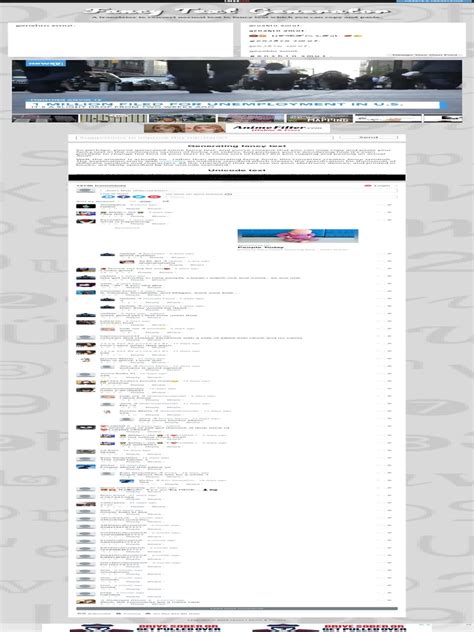
Lingojam Tailes Font Generator: Create Unique Text
Hey there, fellow digital explorers! Ever scroll through social media or gaming chats and see those super cool, stylish messages that just pop? You know, the ones that aren’t just plain old boring text? Well, today, we’re diving deep into the world of how you can create those eye-catching, unique texts, specifically focusing on the amazing Lingojam Tailes Font Generator . This isn’t just about making your words look pretty; it’s about adding personality, flair, and a whole lot of oomph to your online presence. Whether you’re a gamer looking to stand out in the chat, a social media influencer trying to make your captions more engaging, or just someone who loves to experiment with typography, this tool is going to be your new best friend. We’re talking about transforming your regular text into something truly special, something that grabs attention and makes people go, “Whoa, how’d they do that?” And guess what? It’s incredibly easy, super fun, and absolutely free. So, buckle up, guys, because we’re about to unleash your inner font wizard and make your digital communications shine brighter than ever before. We’ll explore what makes the Lingojam Tailes Font Generator so awesome, how to wield its power effectively, and why having a touch of fancy text in your life is an absolute game-changer. Get ready to ditch the drab and embrace the fab with unique, customizable text styles that truly represent your vibe. We’ll cover everything from the basics of using the generator to advanced tips for integrating these cool fonts into all aspects of your digital life, ensuring you master the art of captivating text. No more blending in with the crowd – it’s time to stand out and make your messages unforgettable across every platform you use. We’ll even look at some creative use cases you might not have considered, from personalizing your gaming tag to crafting a compelling brand message, showing you just how versatile and powerful the Lingojam Tailes Font Generator truly is. This guide is your one-stop shop for all things fancy fonts, specifically geared towards helping you leverage Lingojam’s fantastic capabilities. We’re talking about ultimate customization at your fingertips, making every character you type a reflection of your unique style.
What is the Lingojam Tailes Font Generator?
So, what exactly is this magical Lingojam Tailes Font Generator we’re raving about? At its core, Lingojam is a fantastic online platform packed with various text generators, and one of its most popular features is its ability to create stylish , fancy , and often decorative text, which we’re affectionately calling “tailes fonts” in this context. Think of it as your personal text stylist, ready to transform any plain message into a work of art. Instead of simply typing in Arial or Times New Roman, which, let’s be honest, can be a bit snooze-inducing, Lingojam takes your input and re-encodes it using special Unicode characters. These aren’t just different fonts in the traditional sense; they’re unique characters that look like different fonts, allowing them to be displayed almost anywhere text is supported – from your Instagram bio to your Discord messages, and even within your gaming nicknames. The beauty of the Lingojam Tailes Font Generator lies in its simplicity and its vast array of options. You don’t need to download any software, install any special programs, or have any technical know-how. It’s a completely browser-based tool, meaning you can access it from your computer, tablet, or smartphone with an internet connection. Just type your desired text into the input box, and voilà ! The generator instantly spits out dozens, if not hundreds, of different stylistic variations, ready for you to copy and paste. These styles can range from elegant script fonts to quirky bubble letters, bold and italicized variations, upside-down text, tiny text, and even some really wild, elaborate designs that incorporate symbols and special characters to give your words a truly unique ‘tailes’ look. The ‘tailes’ aspect often refers to those decorative flourishes, connecting lines, or slight alterations that make a font feel more elaborate and less generic. It’s about adding that extra zing that makes your words memorable. This versatility makes it an indispensable tool for anyone looking to add a personal touch to their digital communication. The algorithms behind Lingojam are incredibly clever, mapping your standard keyboard characters to their Unicode equivalents, effectively bypassing the limitations of standard font sets. This means you’re not limited to what your device or app dictates; you’re free to express yourself with a virtually limitless palette of textual styles. It’s a playground for creativity, allowing you to experiment with different moods and aesthetics for your messages, posts, and profiles. Imagine being able to convey excitement, mystery, or playfulness simply by choosing the right font style generated by Lingojam. That’s the power we’re talking about, guys, and it’s right at your fingertips, ready to transform the mundane into the magnificent.
Why You Need Fancy Fonts in Your Digital Life
Okay, guys, let’s get real: why bother with fancy fonts generated by the Lingojam Tailes Font Generator when plain text works perfectly fine? The answer is simple: in today’s crowded digital landscape, standing out is no longer an option, it’s a necessity. We are constantly bombarded with information, and anything that can make your message cut through the noise is incredibly valuable. Fancy fonts are like the glitter and confetti of the internet – they grab attention, make things more memorable, and add a layer of personality that plain text simply cannot. Think about it: when you’re scrolling through an endless feed, what catches your eye? Often, it’s something that looks different, something visually appealing or unexpected. A unique font style can be that very thing. For social media gurus , using a distinctive font for your profile name, bio, or even key phrases in your captions can make your content instantly more engaging. Imagine your Instagram bio written in an elegant, flowing script, or your Twitter handle sporting cool, bold characters – it makes you memorable! It’s not just about aesthetics; it’s about branding. Your chosen font style can subtly communicate your brand’s personality, whether it’s playful, sophisticated, edgy, or artistic. Furthermore, for all you gamers out there, the Lingojam Tailes Font Generator is an absolute game-changer (pun intended!). How many times have you wanted a unique, eye-catching in-game name or guild tag that truly expresses your persona? Standard keyboard characters often fall short. But with Lingojam, you can generate epic, stylized names that make a statement in every lobby and kill feed. It adds an extra layer of customization and cool factor that can make your gaming experience even more immersive and personal. Beyond aesthetics, fancy fonts can also serve a practical purpose. They can be used to emphasize certain words or phrases, drawing the reader’s eye to important information. Imagine a call to action in an email, or a crucial announcement in a community forum – a bold, stylized font can make sure it doesn’t get overlooked. Moreover, these unique text styles foster creativity and allow for greater self-expression. They break the monotony of conventional typography and open up new avenues for artistic communication. It’s like having an expanded vocabulary, but for your visual language. Using the Lingojam Tailes Font Generator empowers you to personalize almost every aspect of your online identity, making your digital footprint truly yours . From quirky messages to serious statements, the right font can elevate your content and leave a lasting impression. It’s about making your digital interactions more vibrant, more expressive, and ultimately, more you . So, don’t underestimate the power of a little bit of font flair; it can truly transform your digital life, making you memorable in a sea of plain text and ensuring your voice, or rather, your text, always stands out from the crowd, making every message you send a miniature piece of art that reflects your unique style and personality, whether you’re chatting with friends, posting to thousands, or battling it out in your favorite virtual world. These fonts aren’t just for show; they’re a powerful tool for connection and expression, turning mundane text into captivating messages that resonate deeply with your audience and enhance your online identity in countless ways, becoming an integral part of your digital persona and communication strategy, ensuring that every character you type contributes to a richer, more engaging online presence, fostering a sense of individuality and creative freedom that plain text simply cannot offer in the bustling, competitive landscape of the internet.
How to Use the Lingojam Tailes Font Generator Like a Pro
Alright, squad, now for the exciting part: learning how to master the Lingojam Tailes Font Generator ! You’ll be pumping out stunning, unique text in no time, and trust me, it’s easier than tying your shoes. No complex software, no confusing menus – just pure, unadulterated font generation fun. The whole process is incredibly intuitive, making it accessible for absolute beginners while still offering enough depth for those who love to experiment. First things first, you need to head over to the Lingojam website. A quick search for “Lingojam tailes font generator” or “Lingojam fancy text” will usually lead you straight to the right page. Once you’re there, you’ll notice a super clean interface. Typically, on the left-hand side, there’s an input box labeled something like “Type or paste text here.” This is where your magic begins! Simply type in any text you want to transform. It could be your name, a witty quote, a message for a friend, or even a long paragraph – the generator handles it all. As you type, you’ll immediately see the magic unfold on the right-hand side of the screen. This is where Lingojam displays a live preview of your text, automatically converted into a multitude of different fancy font styles . We’re talking about dozens, sometimes even hundreds, of variations appearing in real-time. Scroll down, and you’ll keep finding more and more options, from subtle changes to dramatically different aesthetics. This is where you get to unleash your inner font enthusiast and explore all the cool